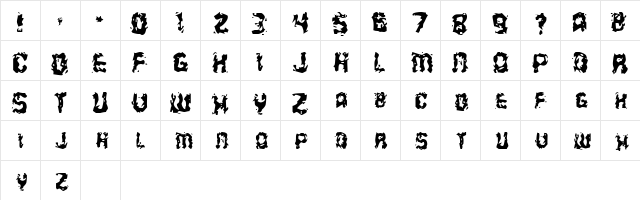
Stab Wound Regular
Design Context for Stab Wound Typeface
Stab Wound is a composed and adaptable typeface that performs quietly and consistently across a wide range of design contexts.